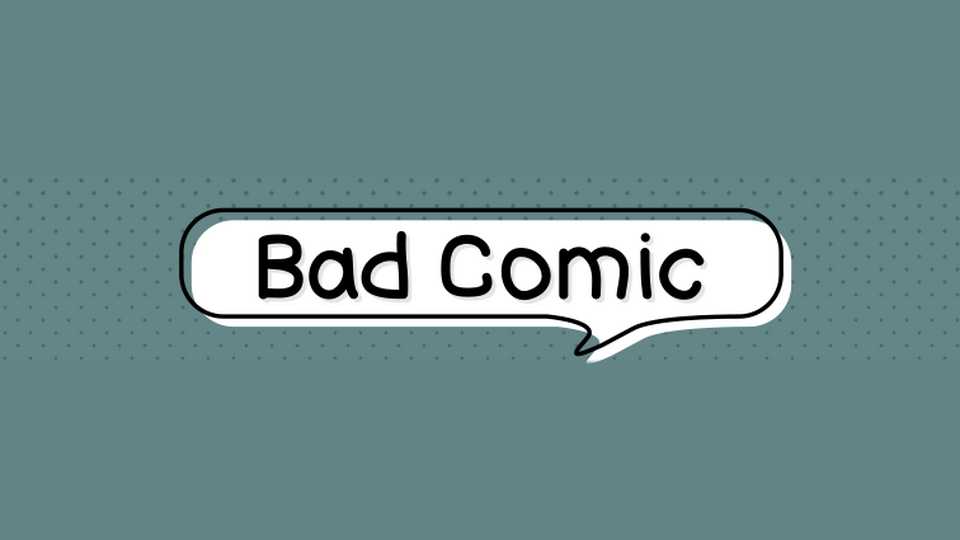
Download Bad Comic font, a casual handwritten script that bring a unique and comic look to any design. A doodly doodle font, it’s perfect for comics, doodle, whiteboard animation, quotes and crafts.